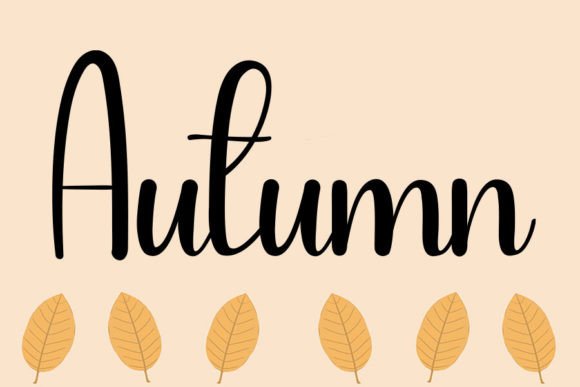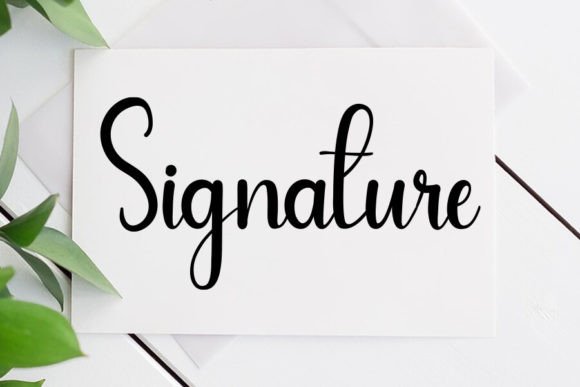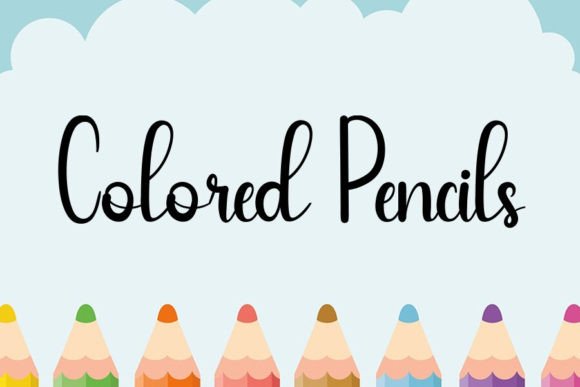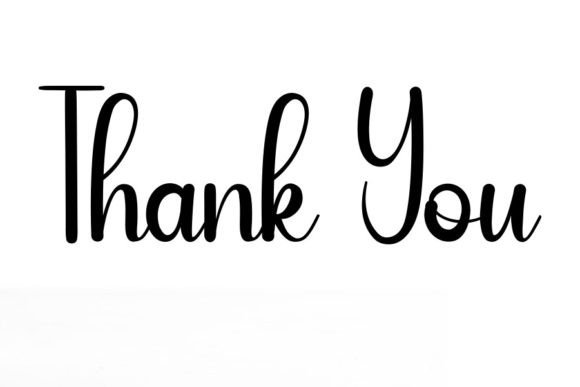
Introducing Garlic Font: The Sweet and Cursive Handwritten Font for Your Design Needs
Are you looking for a font that can add a touch of elegance and romance to your designs? Look no further than Garlic Font, a sweet and cursive handwritten font that is perfect for a variety of design projects. With its gentle and flowing curves, Garlic Font is sure to make your designs stand out and leave a lasting impression.
What Makes Garlic Font Special?
Garlic Font is a unique and versatile font that can be used for a wide range of design ideas. Its sweet and cursive handwritten style makes it perfect for adding a touch of romance and whimsy to your designs. Whether you’re working on a branding project, creating a logo, or designing wedding materials, Garlic Font is sure to add a touch of elegance and sophistication.
One of the best things about Garlic Font is its ability to convey a sense of joy and playfulness. Its flowing curves and gentle lines make it perfect for designs that need to evoke a sense of happiness and warmth. Whether you’re creating a greeting card, a lookbook, or a marketing promotion, Garlic Font is sure to bring a smile to your audience’s face.
Garlic Font is a versatile font that can be used for a wide range of design projects. Here are just a few ideas to get you started:
• Branding: Use Garlic Font to create a unique and memorable brand identity that will set you apart from the competition.
• Logo Design: Create a stunning logo that incorporates Garlic Font and adds a touch of elegance to your brand.
• Wedding Design: Use Garlic Font to create beautiful wedding invitations, programs, and other materials that will make your special day even more memorable.
• Greeting Cards: Add a touch of romance and whimsy to your greeting cards with Garlic Font.
• Fashion: Use Garlic Font to create stunning lookbooks, fashion magazines, and other materials that showcase your designs.
• Marketing Promotion: Add a touch of elegance and sophistication to your marketing promotions with Garlic Font.
Why Choose Garlic Font?
There are many reasons why Garlic Font is the perfect choice for your design needs. Here are just a few:
• Elegant and Sophisticated: Garlic Font has a elegant and sophisticated style that is perfect for designs that need to convey a sense of luxury and refinement.
• Casual and Friendly: Despite its elegant style, Garlic Font is still casual and friendly, making it perfect for designs that need to be approachable and relatable.
• Highly Versatile: Garlic Font can be used for a wide range of design projects, from branding and logo design to wedding design and marketing promotions.
• Easy to Read: Garlic Font is highly legible, making it perfect for designs that need to communicate a message clearly and effectively.
In conclusion, Garlic Font is a sweet and cursive handwritten font that is perfect for a variety of design projects. Its elegant and sophisticated style, combined with its casual and friendly approach, make it a highly versatile font that can be used for everything from branding and logo design to wedding design and marketing promotions. Whether you’re a designer, crafters, or DIY enthusiast, Garlic Font is sure to become a valuable addition to your design toolkit.